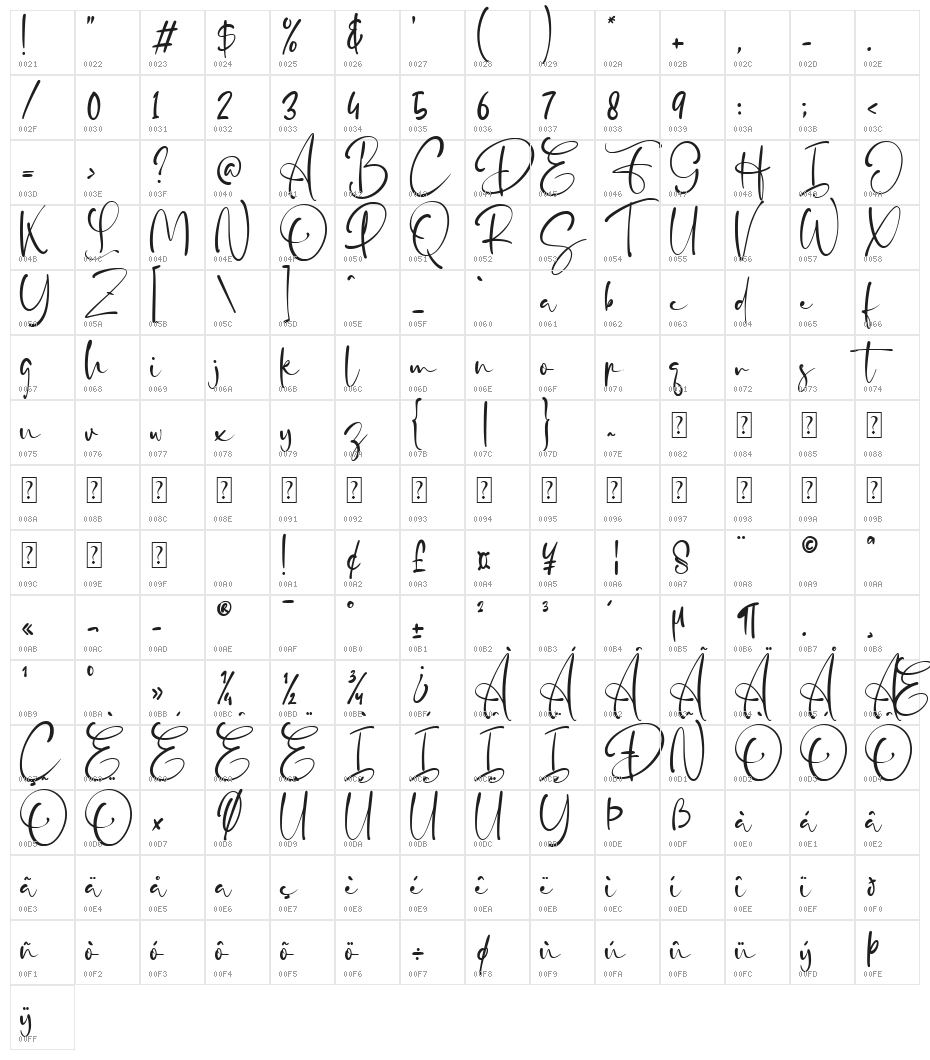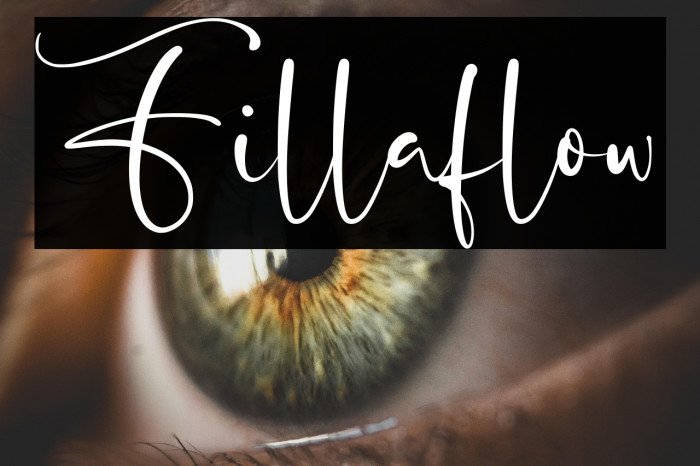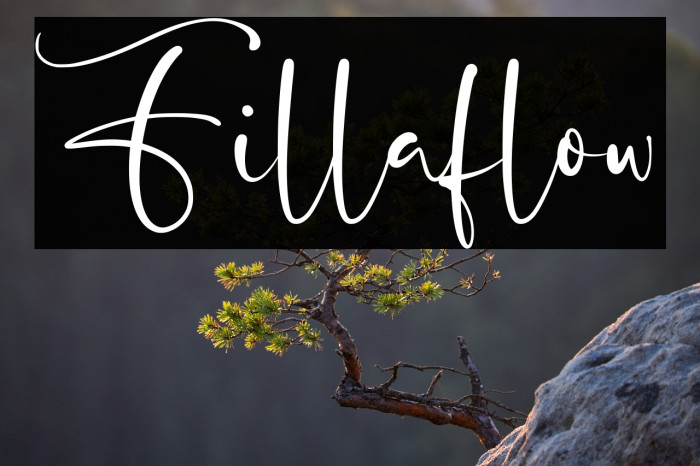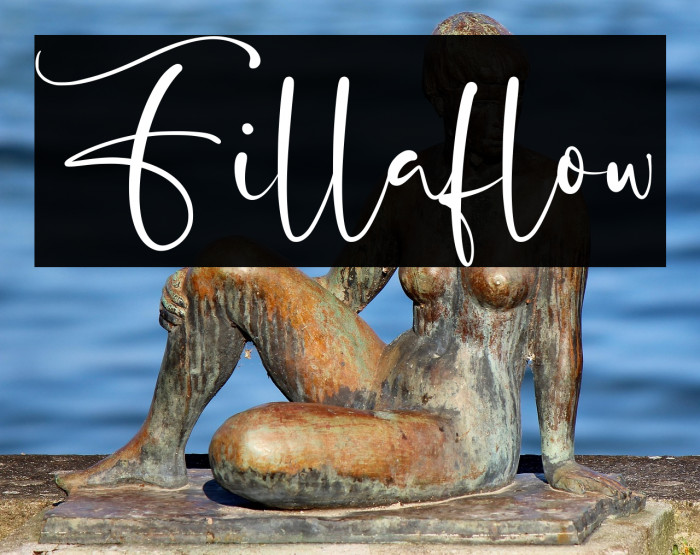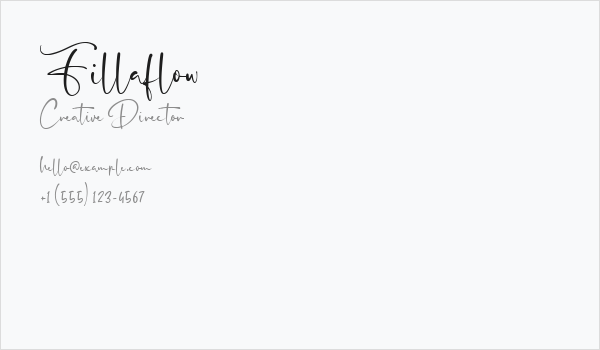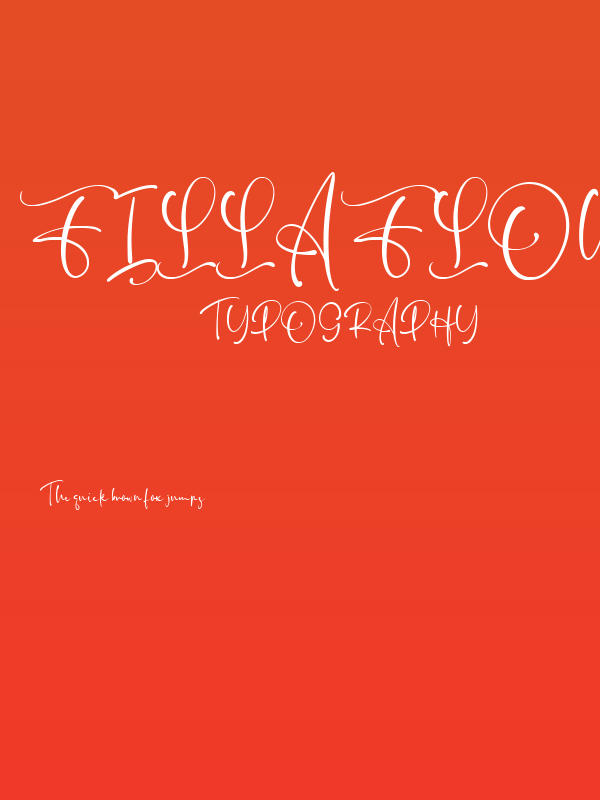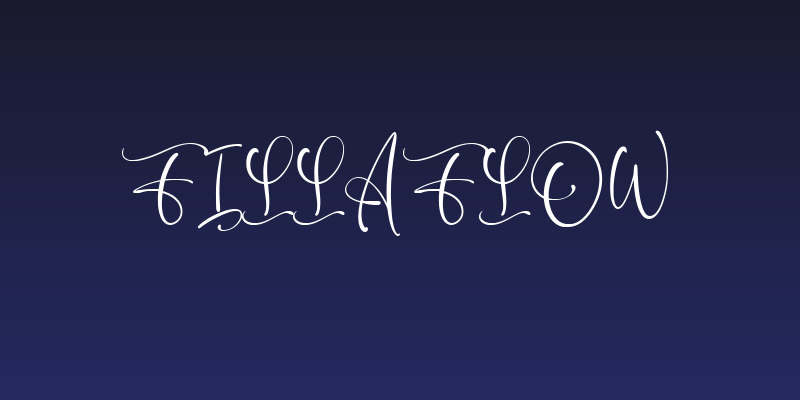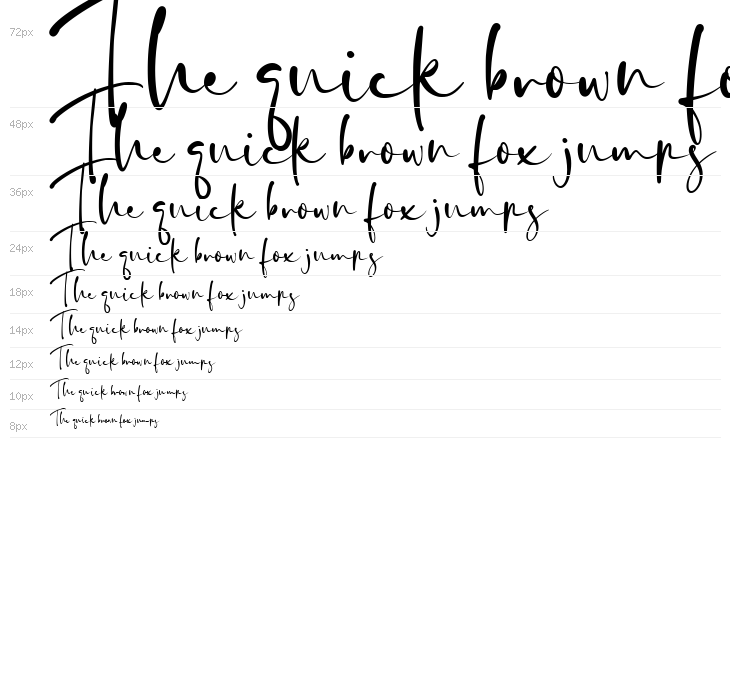
Fillaflow Font
Fillaflow Description
This font features a lively and flowing script style, characterized by its elegant and cursive letterforms. The uppercase letters exhibit a graceful and slightly whimsical appearance, with smooth curves and loops that add a sense of movement. The lowercase letters maintain a consistent flow, with some characters featuring unique flourishes that enhance the overall aesthetic. The numerals are bold and clear, complementing the script style without losing readability. Special characters are thoughtfully designed to match the font's playful yet sophisticated vibe. This font's dynamic and artistic nature makes it suitable for creative projects that require a personal touch.
| Use Case | Logos, Invitations, Artistic projects |
| Proposed Projects | Ideal for wedding invitations, greeting cards, branding, and artistic projects requiring a personal touch. |